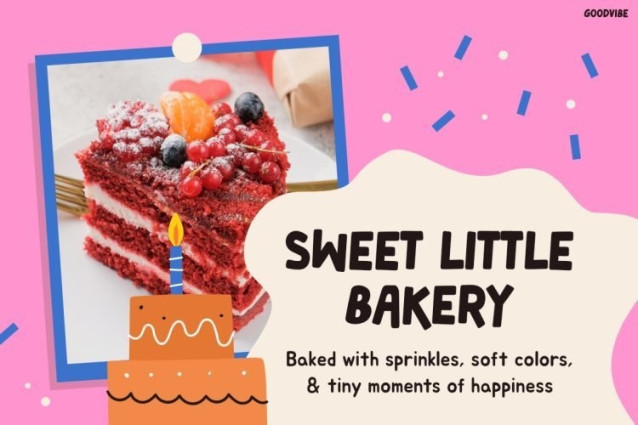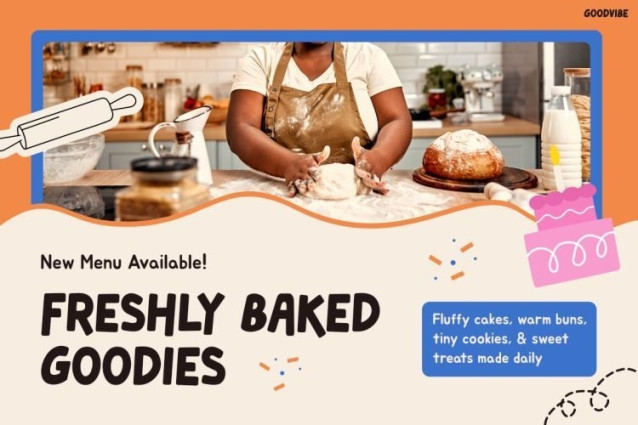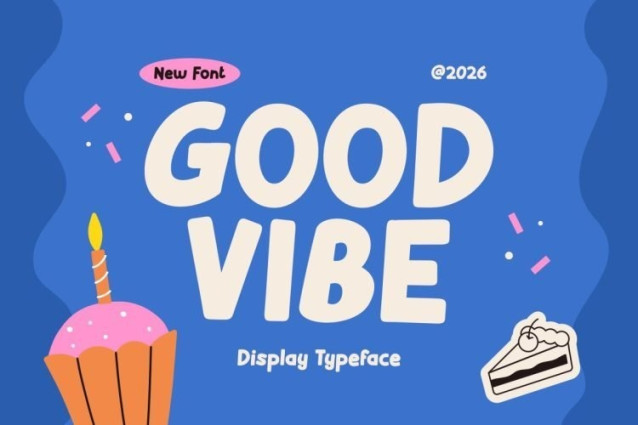
Goodvibe Font
Goodvibe Font a fun hand-crafted personality. Furthermore, the font creates a warm and friendly atmosphere that instantly captures attention. Because of its soft shapes and adorable character, Goodvibe feels joyful, welcoming, and full of positive vibes. In addition, the font combines excellent readability with a playful aesthetic, making every headline look bright and memorable. As a result, your designs feel more engaging, colorful, and perfect for family-friendly audiences.
Moreover, Goodvibe blends cute bakery-inspired charm with modern display typography, so it works beautifully across a variety of creative projects. Whether you are designing packaging, party invitations, social media graphics, or children’s branding, this font adds sweetness and personality to every layout. Therefore, Goodvibe is an excellent choice for creators who want typography that feels fun, energetic, and approachable.